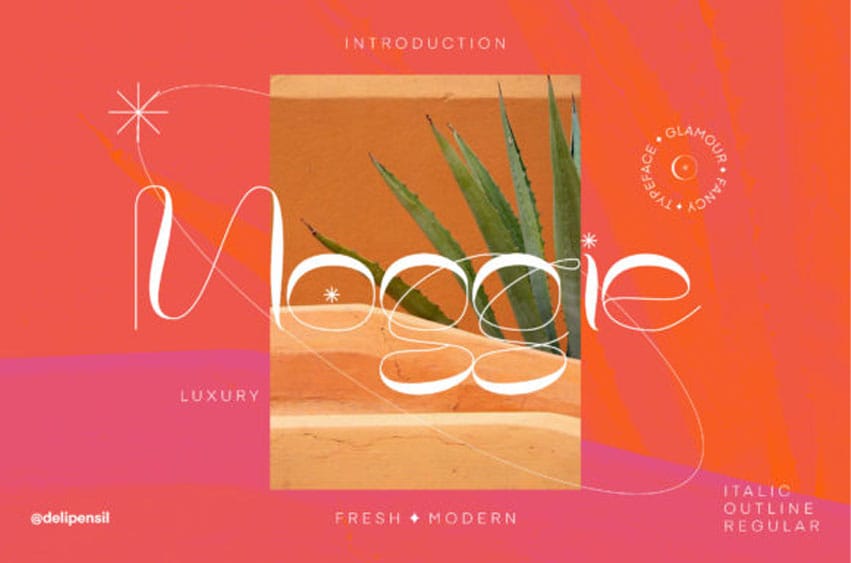
Moggie Font is a lovely, whimsical and luxurious script font.
This font was particularly crafted for those who need a beautiful and refreshing look to their designs.